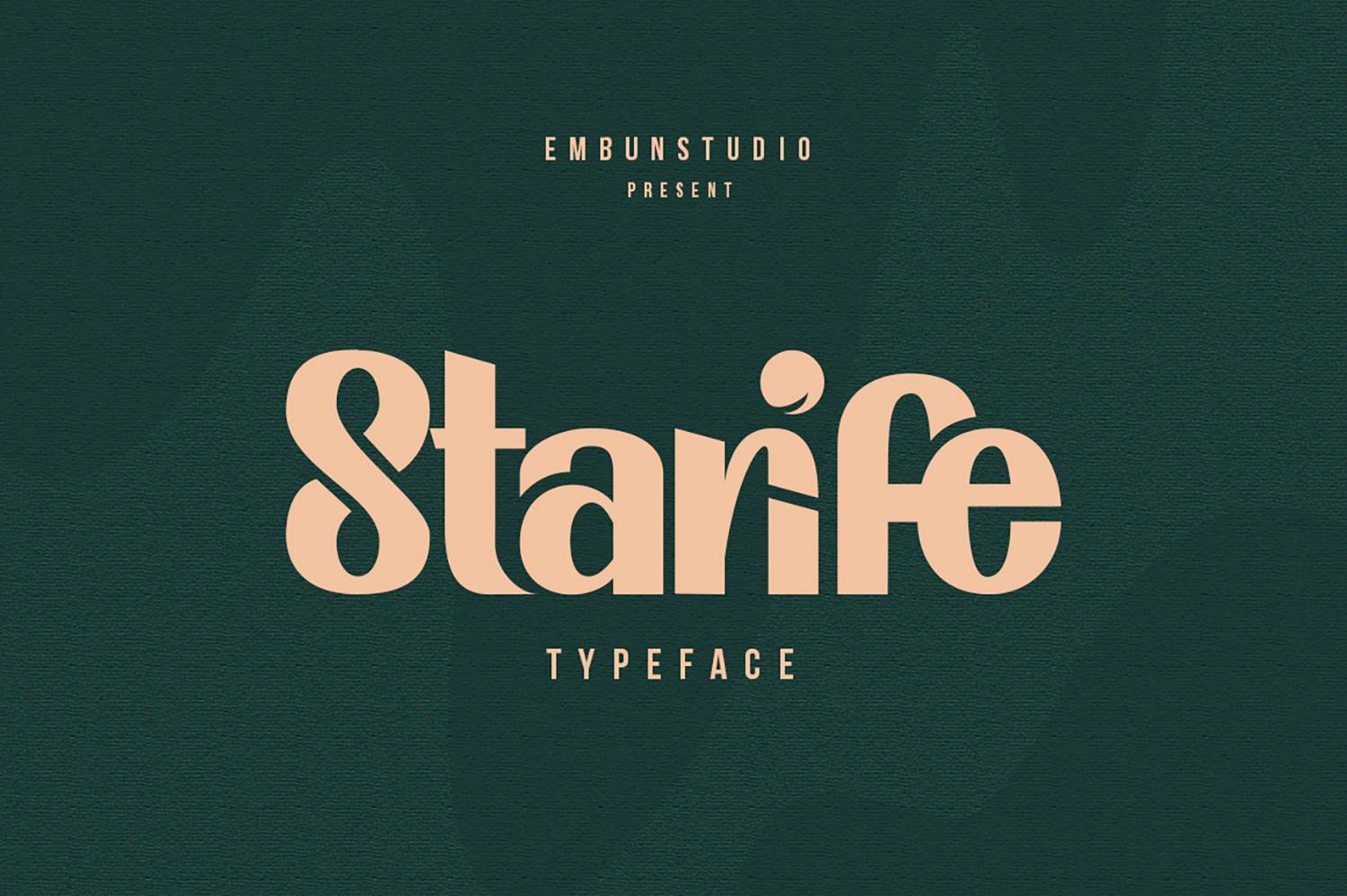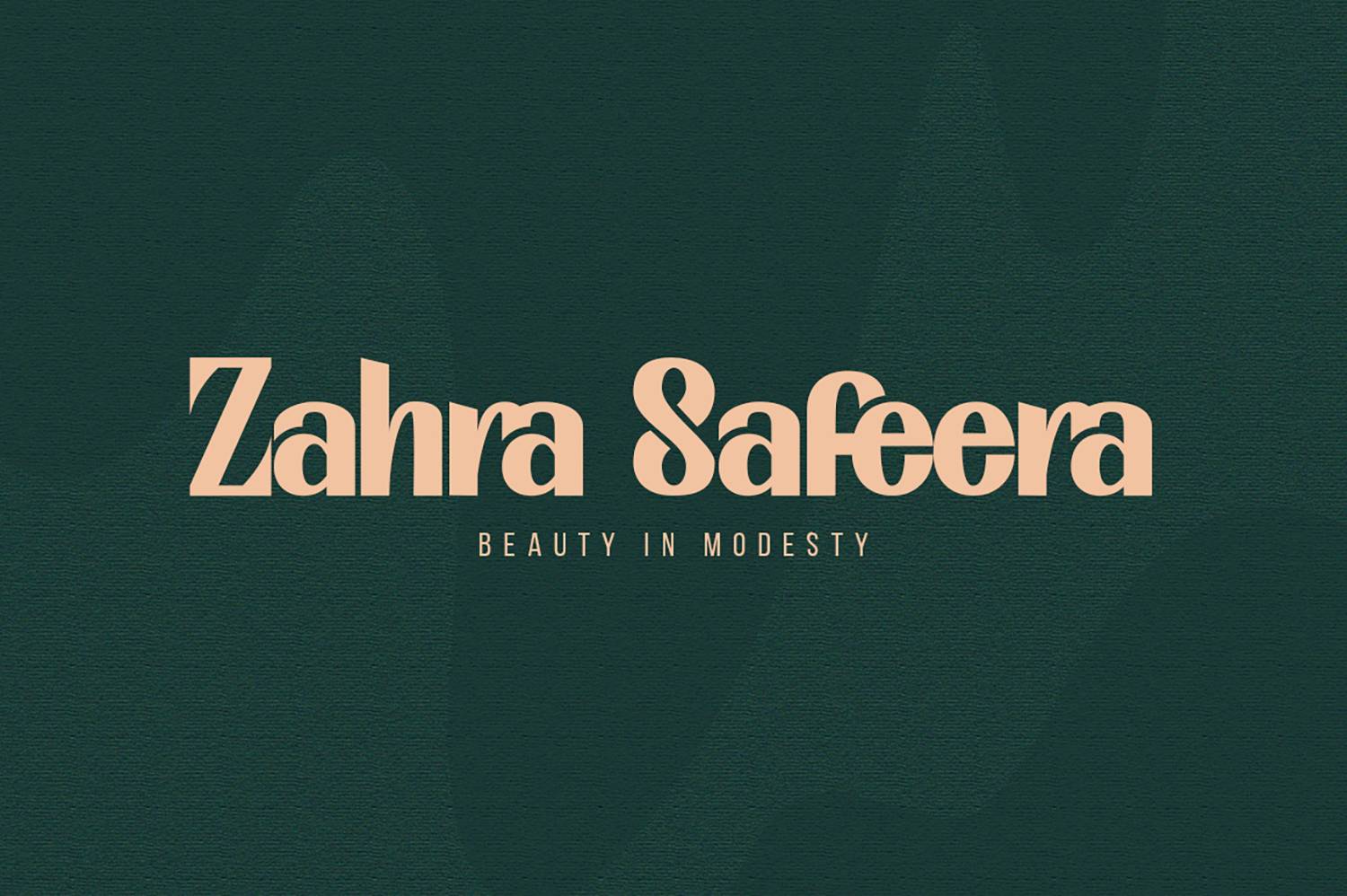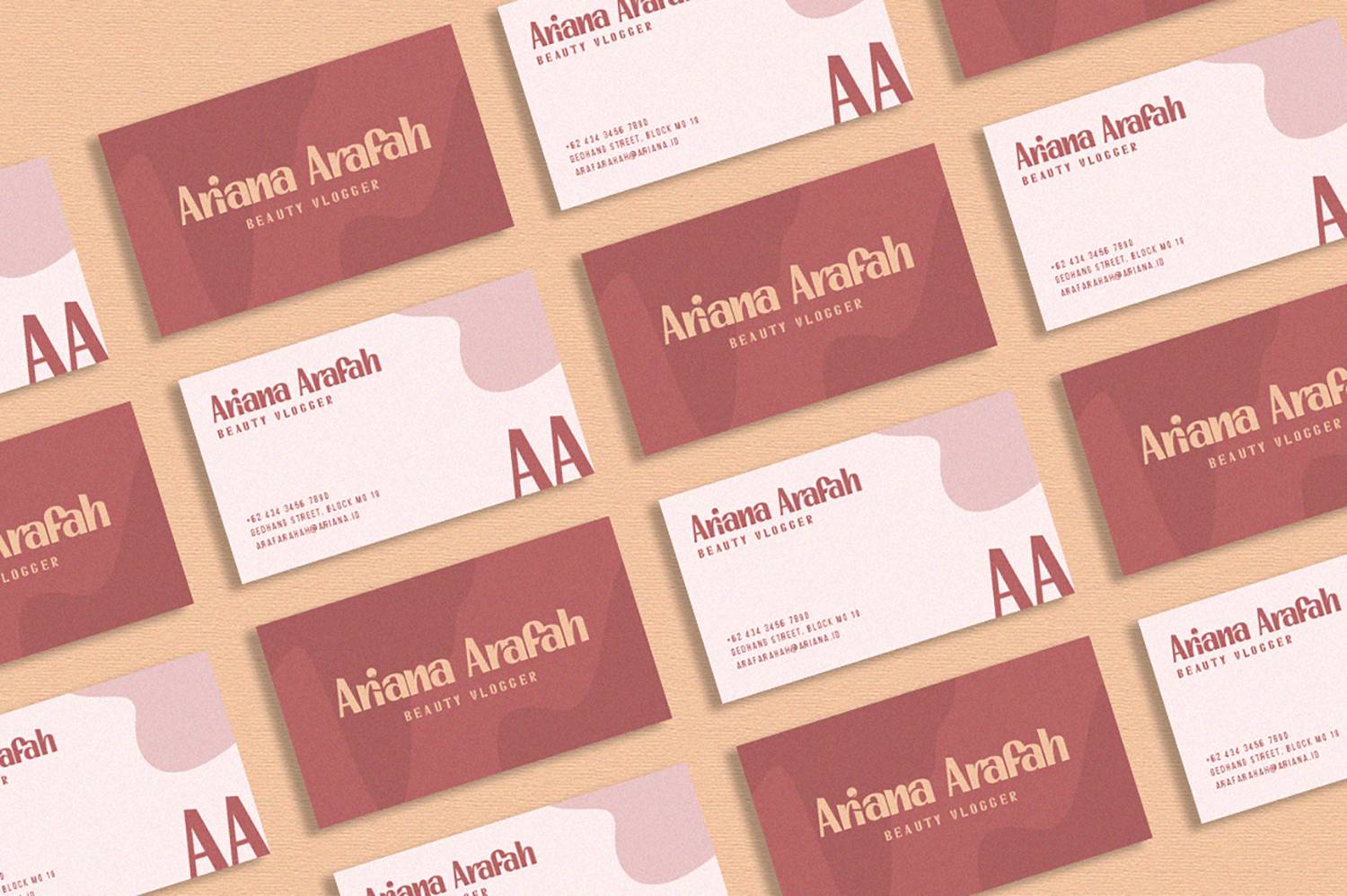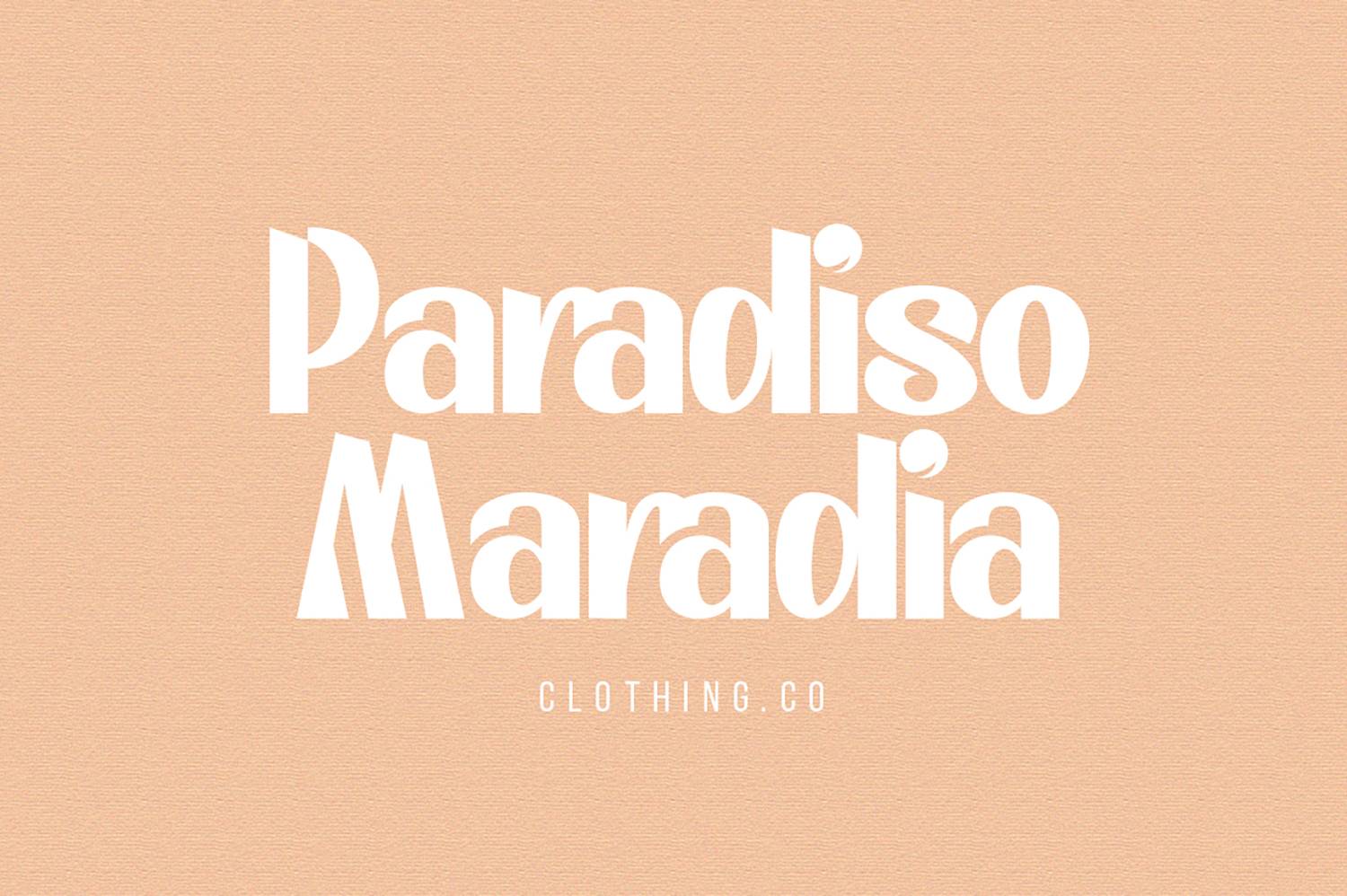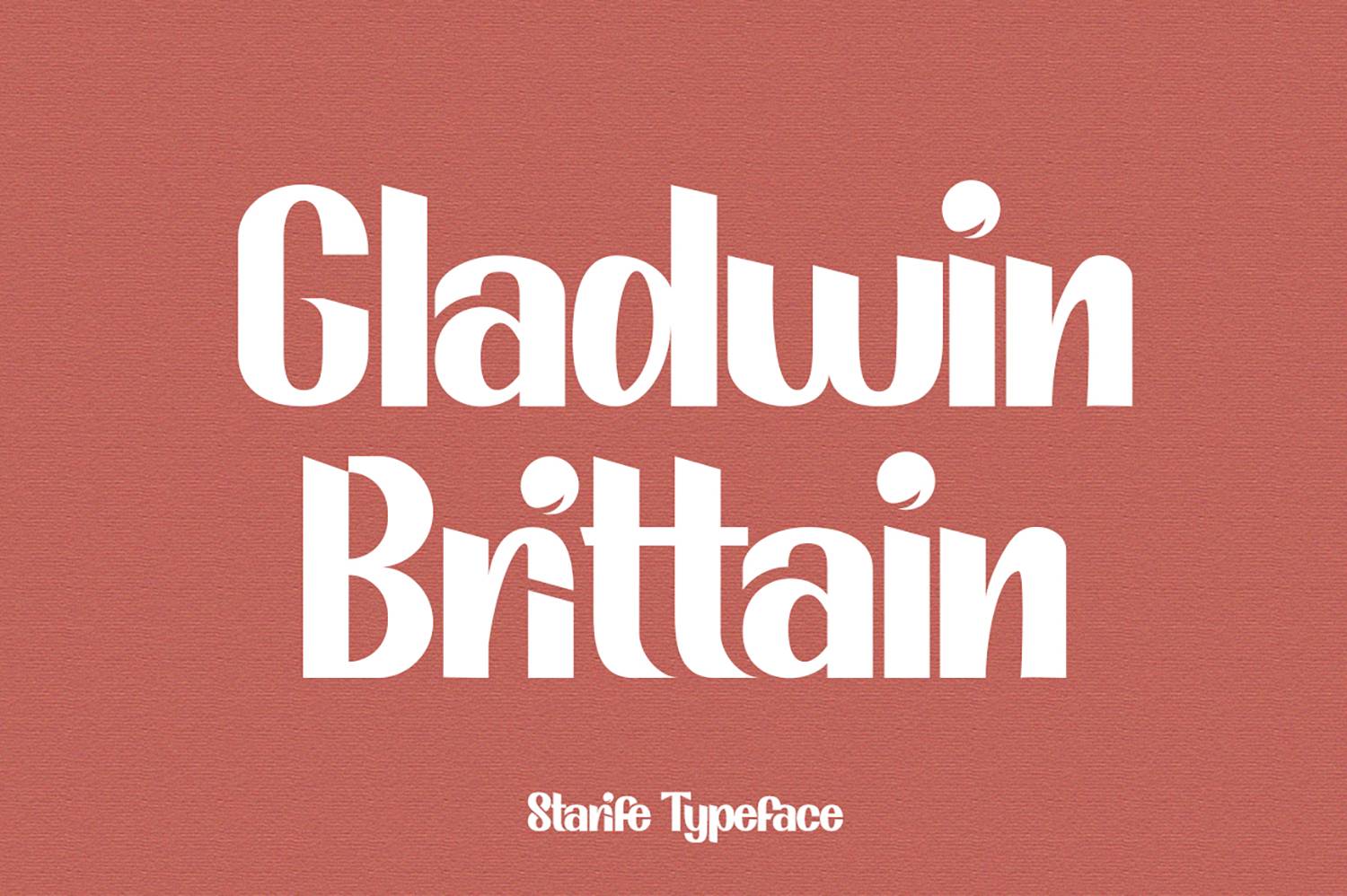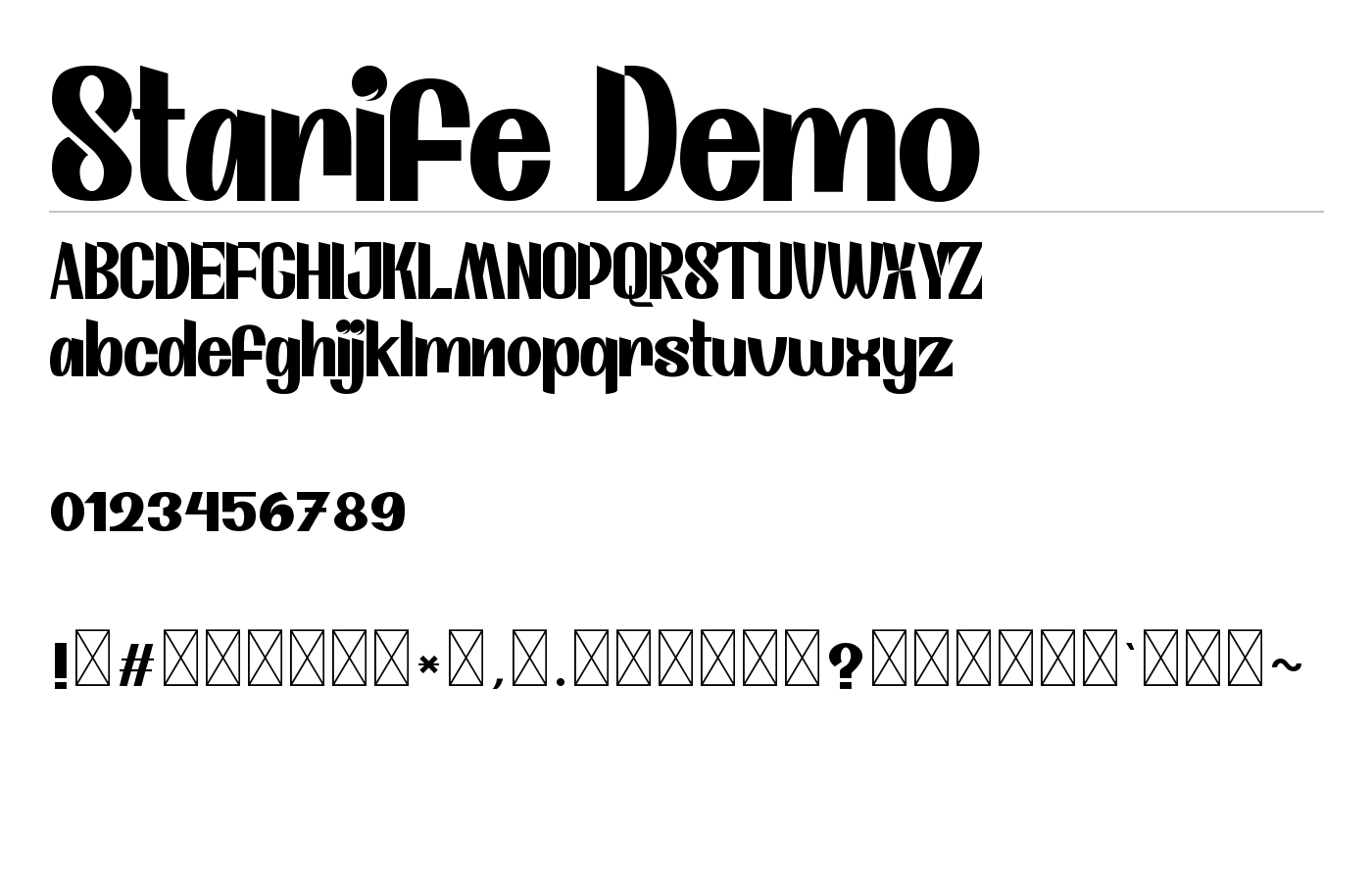
Starife is a bold, condensed sans serif font with a distinctive vintage flair, featuring sharp, geometric strokes and playful, slightly irregular character shapes. Its tall x-height and unique letterforms make it ideal for eye-catching headlines, logos, and packaging where a strong, retro-inspired personality is desired. This font works particularly well for brands seeking a bold, stylish, and memorable visual impact.
Starife Font
About Starife Font
| Font family | Starife Font |
| Release date | 2020-07-05 |
| Designer | Aditya Rezki |